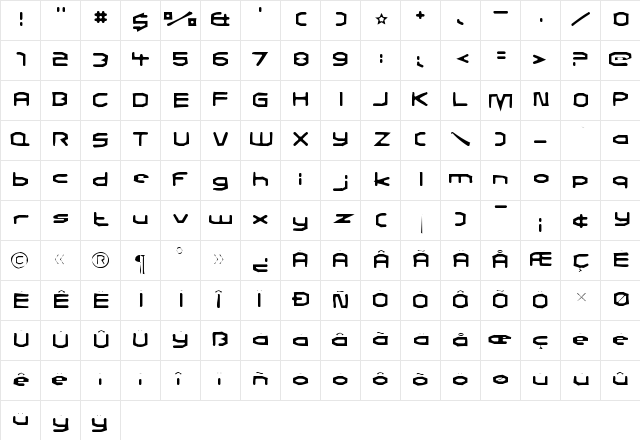
Charles in Charge Gaunt Regular
Design Context for Charles in Charge Gaunt Typeface
Charles in Charge Gaunt is a composed and adaptable typeface that performs quietly and consistently across a wide range of design contexts.